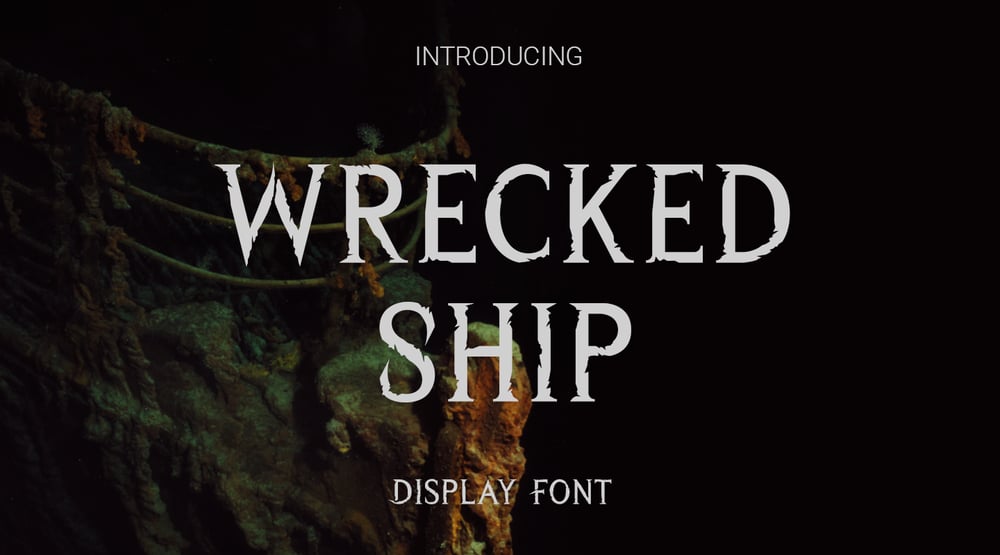
Wrecked Ship Font Family was designed by RoninDesign and published by Ronin Design. Wrecked Ship contains 1 styles and family package options. Wrecked Ship is a serif display font, inspired by broken and old iron. Wrecked Ship will perfect design for poster, cover, tittle, merchandise and many more